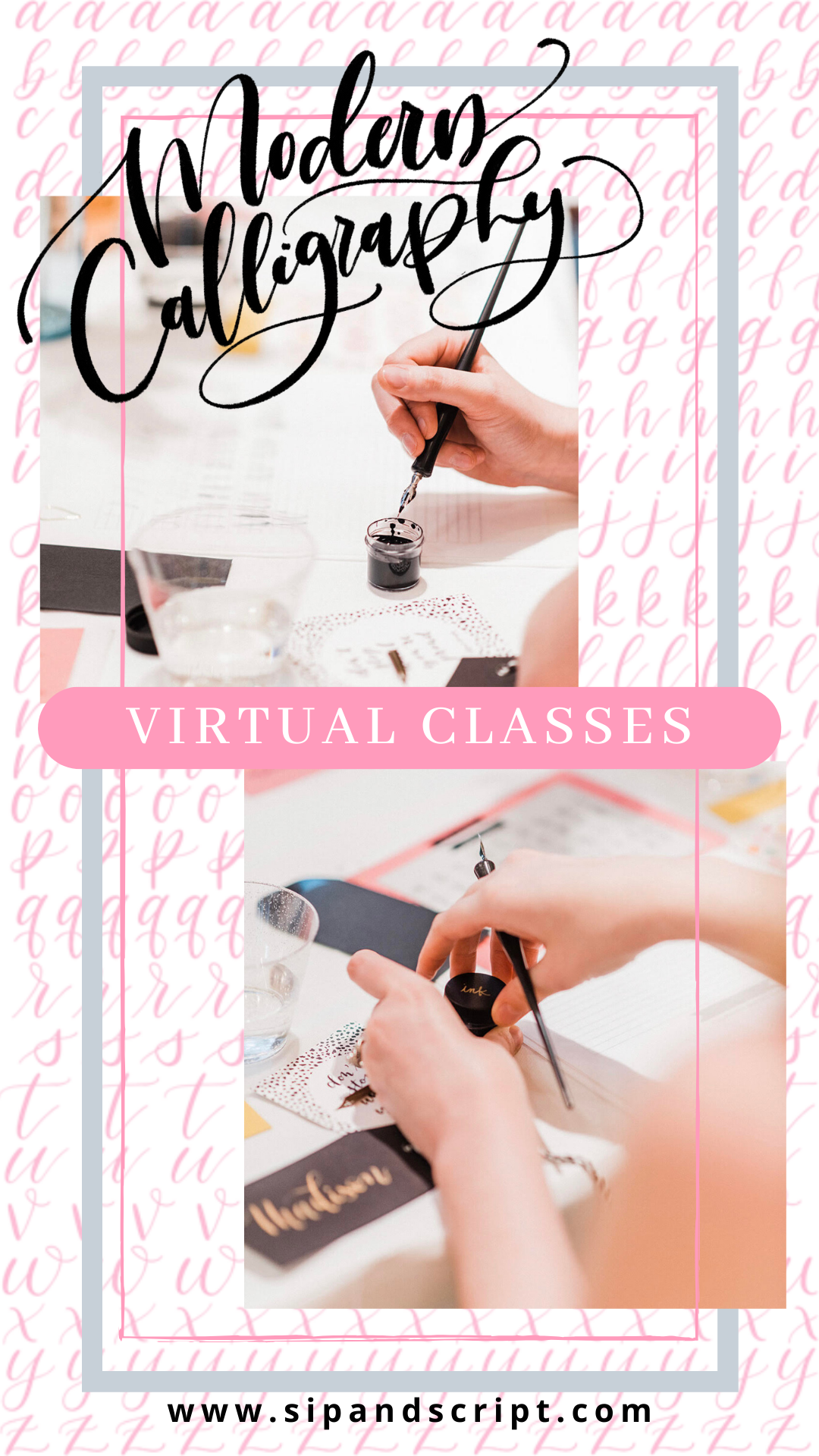
Take a Virtual Calligraphy Class
I joined Sip & Script as a calligraphy instructor in February. I’ve already been teaching my own hand lettered DIY classes, and am really excited to be teaching pointed pen classes, too! A little background on Sip & Script - it’s all about teaching fun, laid-back modern calligraphy classes at local venues. It was founded by two calligrapher friends, Meg and Julie, in the Boston area a few years ago and has grown to a group of instructors teaching classes across the country! It is really cool being part of a community of talented ladies & I’m loving it so far!
While obviously I wish we could be doing in-person classes right now, virtual classes are the next best thing. And calligraphy is the perfect quarantine activity because it is so relaxing! The smooth flow of the ink and soft scratch of the nib can be seriously therapeutic.
How it works
Classes cover the basics of modern calligraphy and are a great way to start learning or as a refresher if you’ve dabbled in calligraphy before!